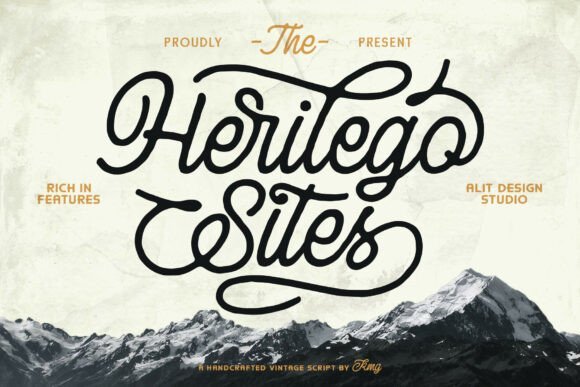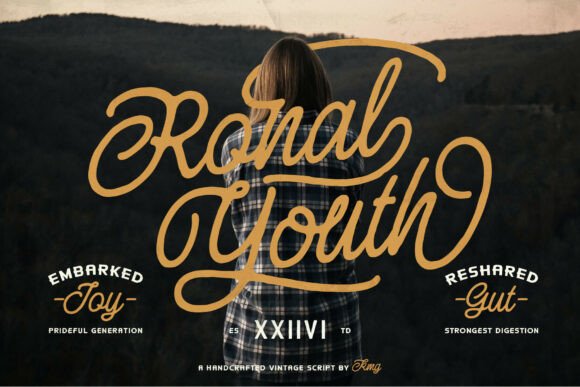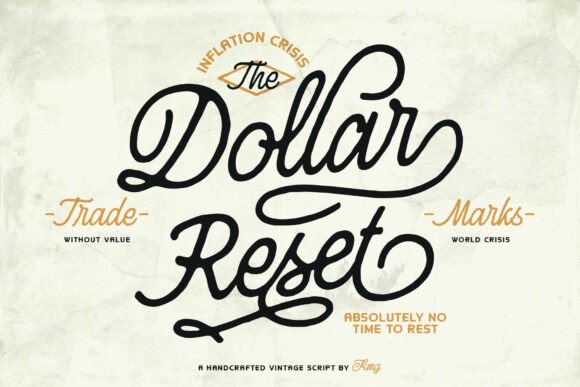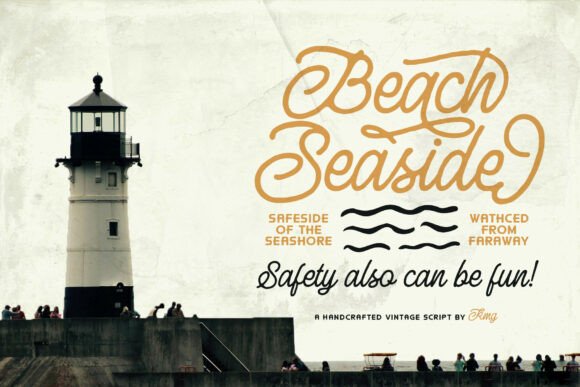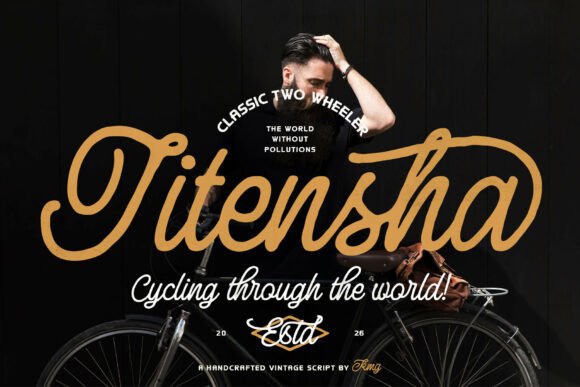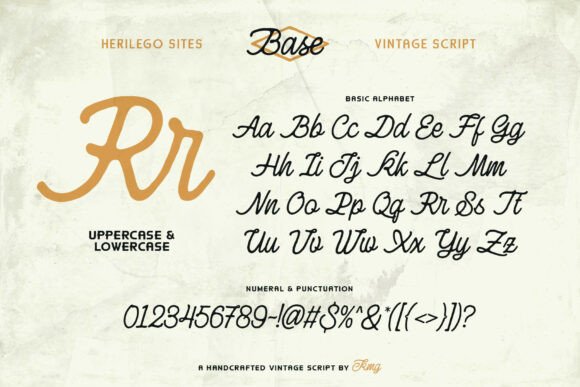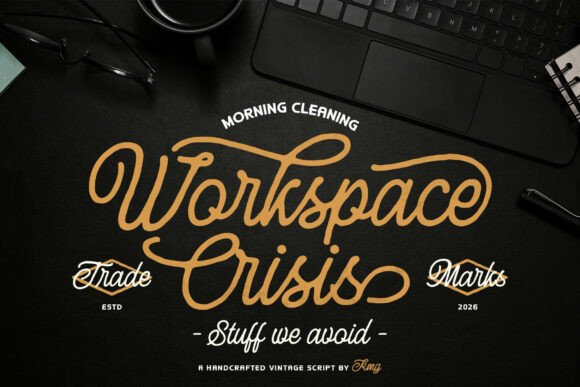
When Words Become Art: Unlocking the Power of Herilego Sites Font
Have you ever stumbled upon an old, worn-out sign in a quaint town, and felt an instant connection to the story behind it? The weathered letters, the imperfections, the character – it’s as if the sign is speaking directly to your soul. As designers, we’re constantly seeking ways to infuse our digital creations with that same emotional depth, that same human touch. And that’s where Herilego Sites Font comes in – a premium handcrafted vintage script that seamlessly blends nostalgic elegance with modern versatility.
With Herilego Sites Font, you’ll have the tools to breathe life into your designs, to create custom-looking typography that speaks to your audience on a deeper level. Whether you’re working on a project that requires a rugged outdoor vibe or a sophisticated cafe aesthetic, this font adapts to your vision, allowing you to tap into the essence of timeless craftsmanship.
Herilego Sites Font Review
First off, I have to say that Herilego Sites Font has some amazing qualities that make it a great choice for designers.
- ✨ Unique and stylish font: Herilego Sites Font has a distinctive look that can elevate any design project. It’s perfect for those who want to add a touch of sophistication and elegance to their work.
- ✨ Great for digital design: This font is highly legible on screens, making it ideal for web design, mobile apps, and other digital projects.
- ✨ Wide range of languages supported: Herilego Sites Font supports a wide range of languages, making it a great choice for projects that require multilingual support.
However, there are a few limitations that might make it less appealing to some designers.
- ⚠️ Limited bold and italic options: While the font has a wide range of styles, the bold and italic options are limited, which might make it less versatile for some projects.
- ⚠️ Not suitable for body text: Due to its unique style, Herilego Sites Font is best used as a header or title font, rather than body text.
Overall, Herilego Sites Font is a great choice for designers who want to add a touch of elegance and sophistication to their work. While it has some limitations, its unique style and wide range of languages supported make it a great addition to any design project.
Tips for Getting the Most Out of Herilego Sites Font
Use Herilego Sites Font to create a unique and modern look for your designs.
Pair it with bold and bright colors to make your designs stand out.
Use it for headings and titles to add a touch of sophistication.
Herilego Sites Font is perfect for:
Web design and development
Graphic design and branding
Print design and marketing materials